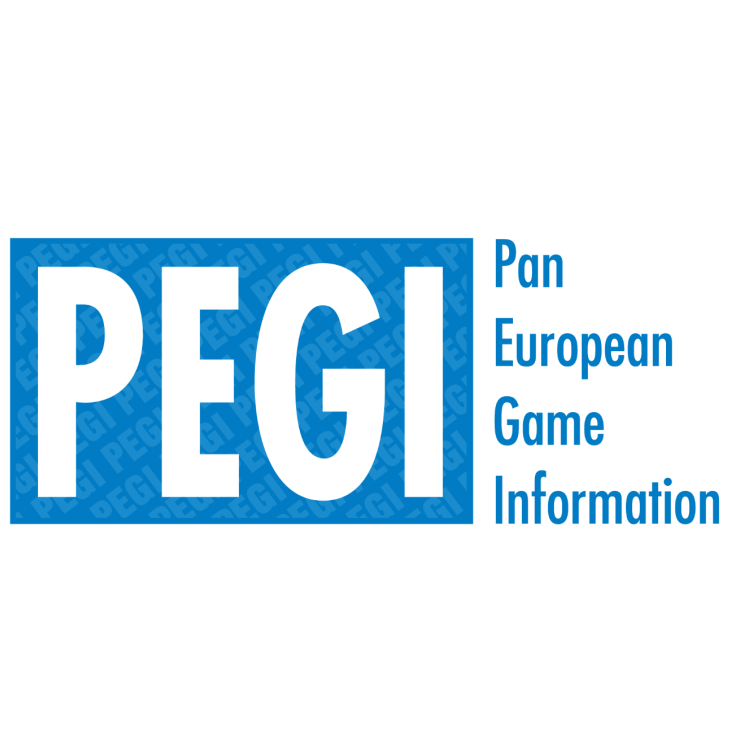
PEGI Logo Font
EntertainmentPan European Game Information (PEGI) is a video game content rating system used in over 30 European countries to classify video games based on their content and suitability for certain age groups.
The logo of PEGI features the font Futura, with "PEGI" written in Futura Bold Condensed and the full name in Futura Medium Condensed. The PEGI labels display five age levels (3, 7, 12, 16, and 18) and are usually found on the front and back of the game box. The age numbers are set in the Gothic 13 font.